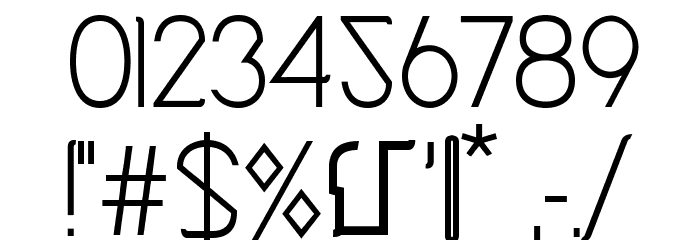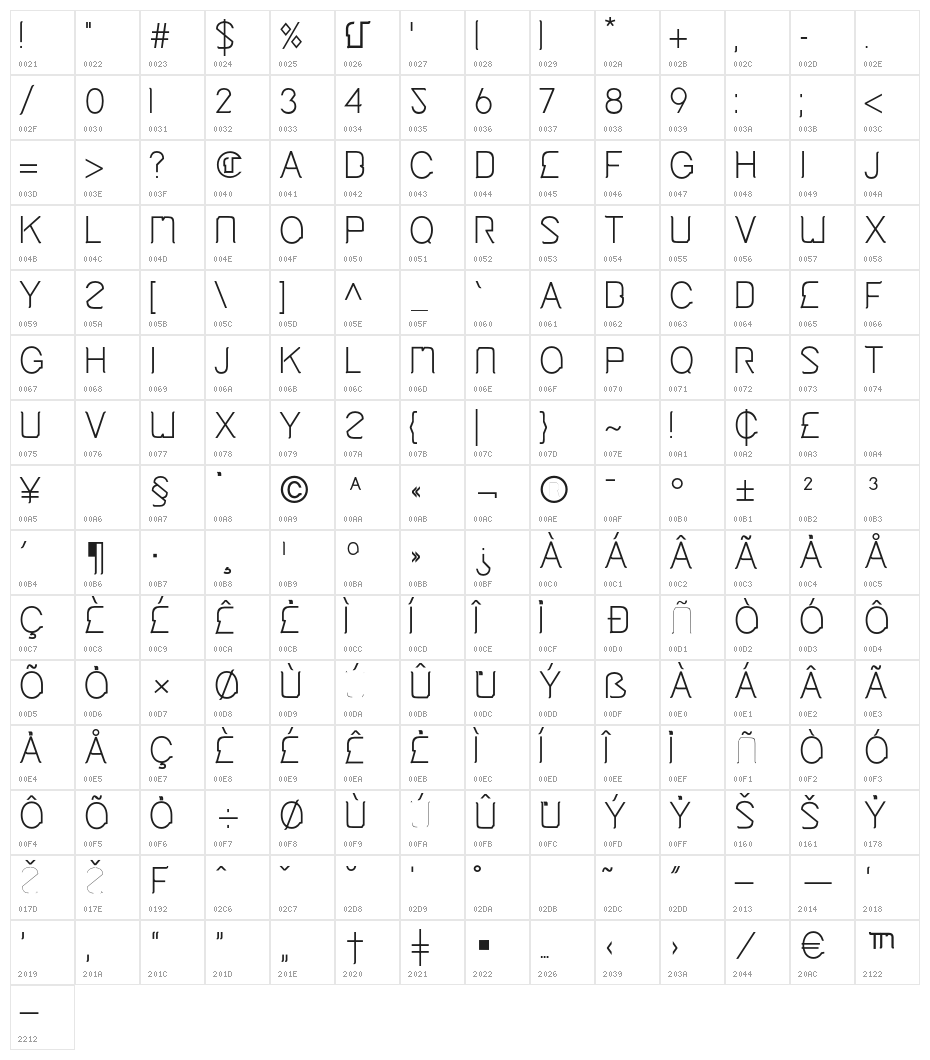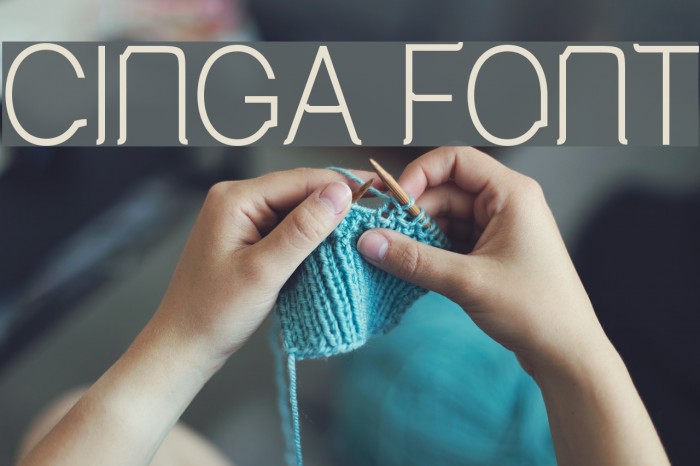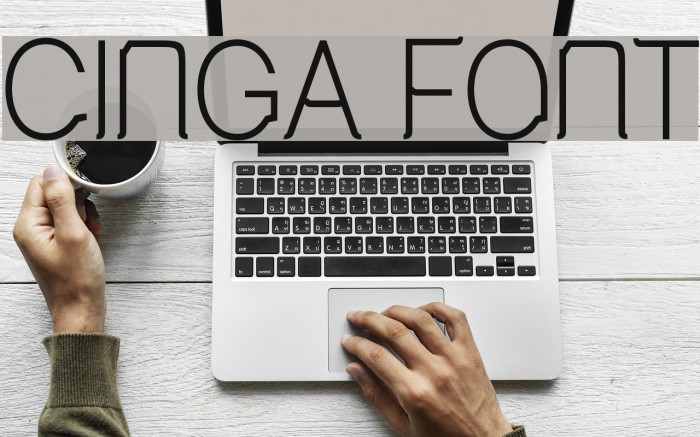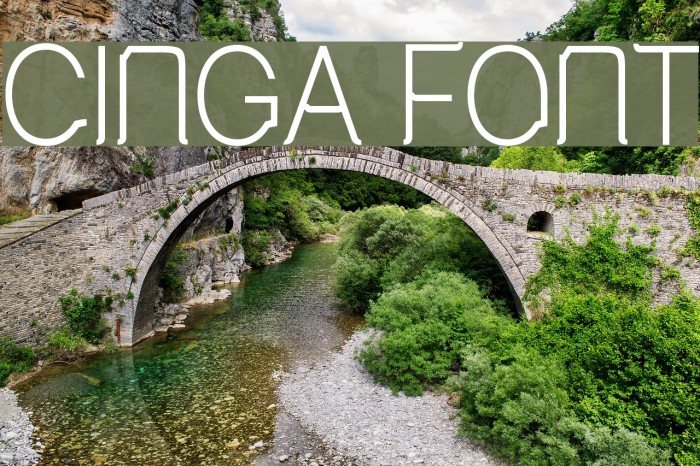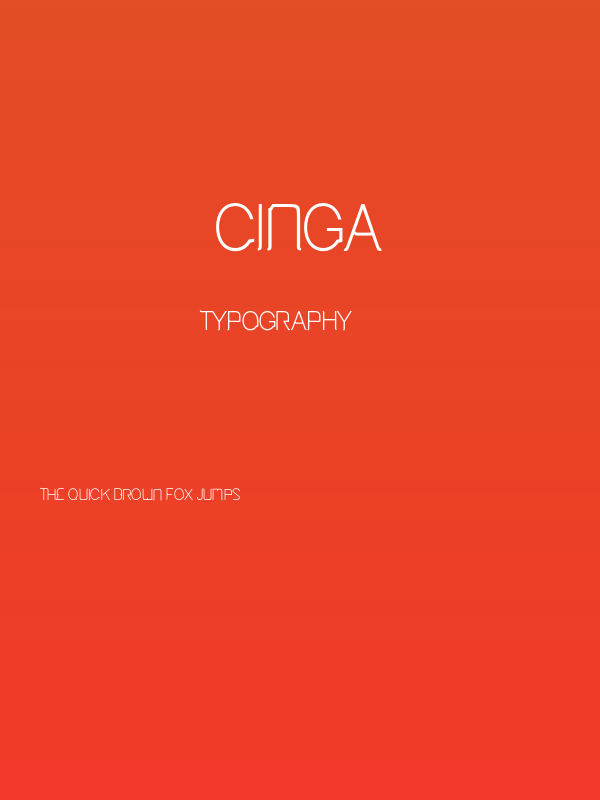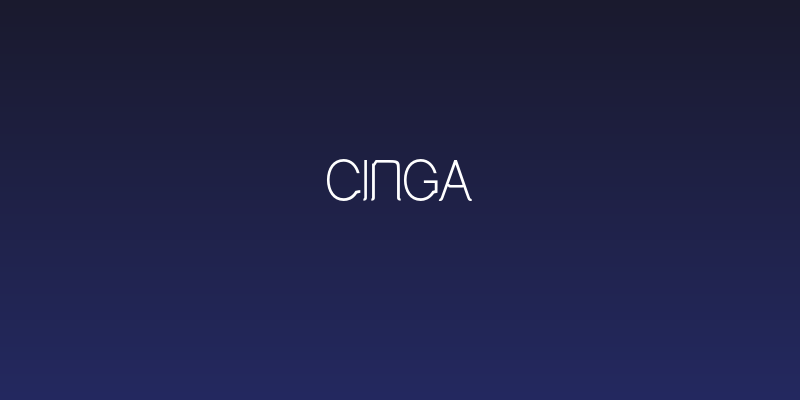
Cinga Font
Cinga Description
This font features a unique and modern design with geometric influences. The characters are constructed with clean, straight lines and sharp angles, giving it a futuristic and technical appearance. The uppercase letters have a distinctive style, with some characters incorporating unexpected cuts and shapes that add to its avant-garde look. The lowercase letters maintain the same geometric theme, ensuring consistency throughout the typeface. Numbers are designed with a similar aesthetic, providing a cohesive look across all characters. Special characters are included, each crafted to match the overall style, making this font versatile for various design needs.
Overall StyleFuturistic, Technical
Proposed ProjectsIdeal for technology branding, sci-fi themed projects, modern art posters, and innovative product packaging.